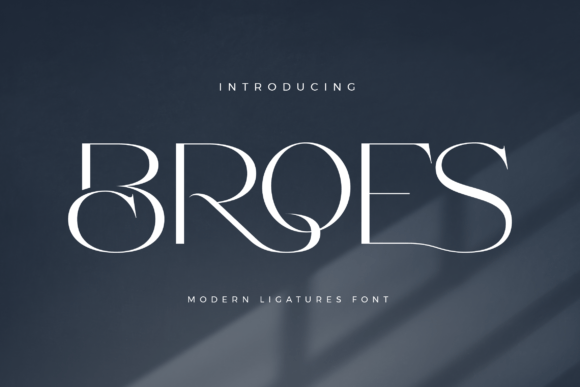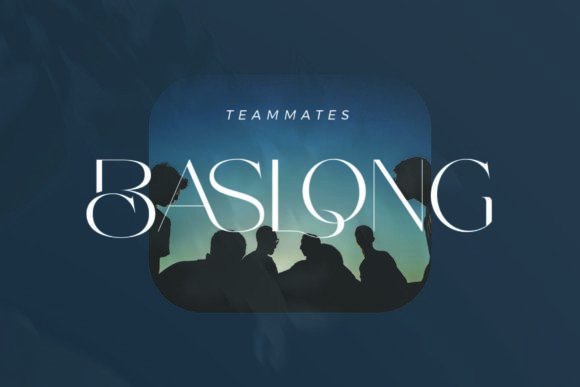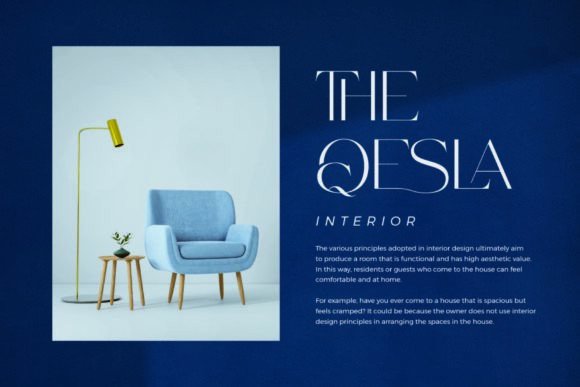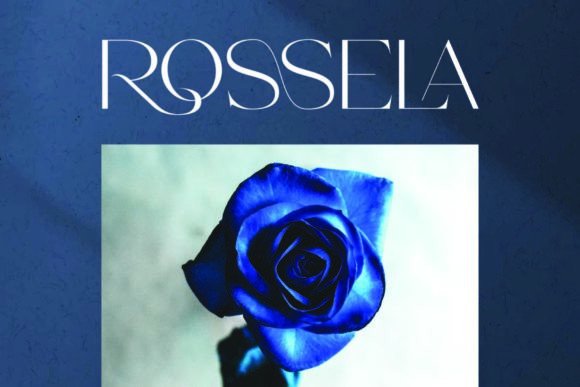
Broes Font: Elegant Ligature Sans Serif for Modern Logo Design
About the Broes Font
Introducing the Broes Font, a beautifully crafted typeface designed to elevate your creative projects. Broes Sans Font Typeface inspired by the famous minimalist logo perfect for the purposes of designing templates, brochures, videos, advertising branding, logos, invitations, layout design, elegant crafting, beauty design, and others.
Broes Sans excels in headline treatments, short-form text blocks within branding materials, and logo design where its minimalist elegance shines. It’s also well-suited for sophisticated packaging design and short, impactful advertising copy. However, its clean lines and relatively thin strokes make it less suitable for extended body text or user interface elements where high readability is paramount.
The font projects a modern, sophisticated, and slightly minimalist personality. It works best for brands aiming for a clean, contemporary aesthetic—think luxury goods, minimalist fashion, or high-end technology.
Pairing Broes Sans with a complementary serif like Garamond or a geometric sans-serif such as Futura would create a visually appealing contrast. For a more playful approach, consider pairing it with a script font like Allura, but use sparingly to maintain the overall sophisticated feel.
Broes Font Usage Examples
Broes Font Example